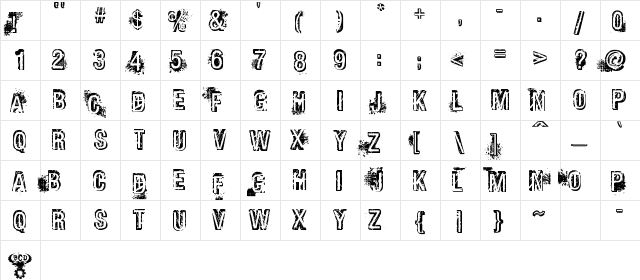
Phat Grunge Bold Bold
| Designer | Bolt Cutter Design |
Design Context for Phat Grunge Bold Typeface
Phat Grunge Bold trades polish for personality, using distressed and eroded forms to bring grit and attitude to creative work.
A strong fit for alternative music projects, graffiti-adjacent design, and anything that deliberately resists polish.
Pro Tip: Use Phat Grunge Bold at larger sizes where the texture and irregularity of each letterform can be clearly seen — it loses its character at small sizes.